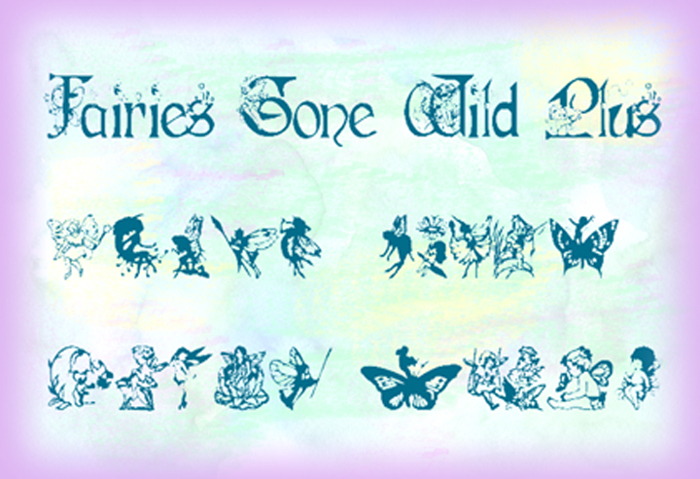
Fairies Gone Wild Plus Font
Every capital letter has a different fairy on it and each lower case letter has some "magic sprinkles". This is an extended version of my Fairies Gone Wild font and has 20 fairies included as symbols. In Microsoft Word, this would be on the Insert menu, then symbol, more symbols,and scroll through to find a fairy. Then you would select it and click Insert. Hope you have fun with this font.